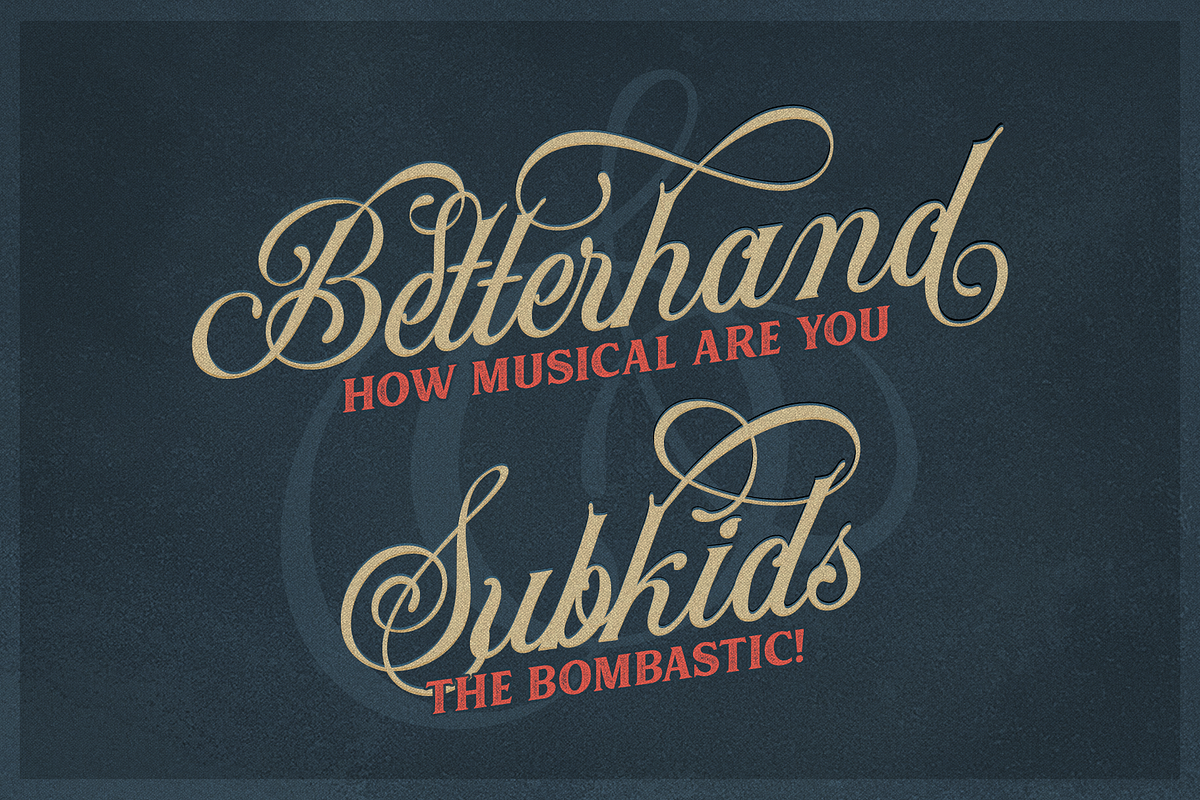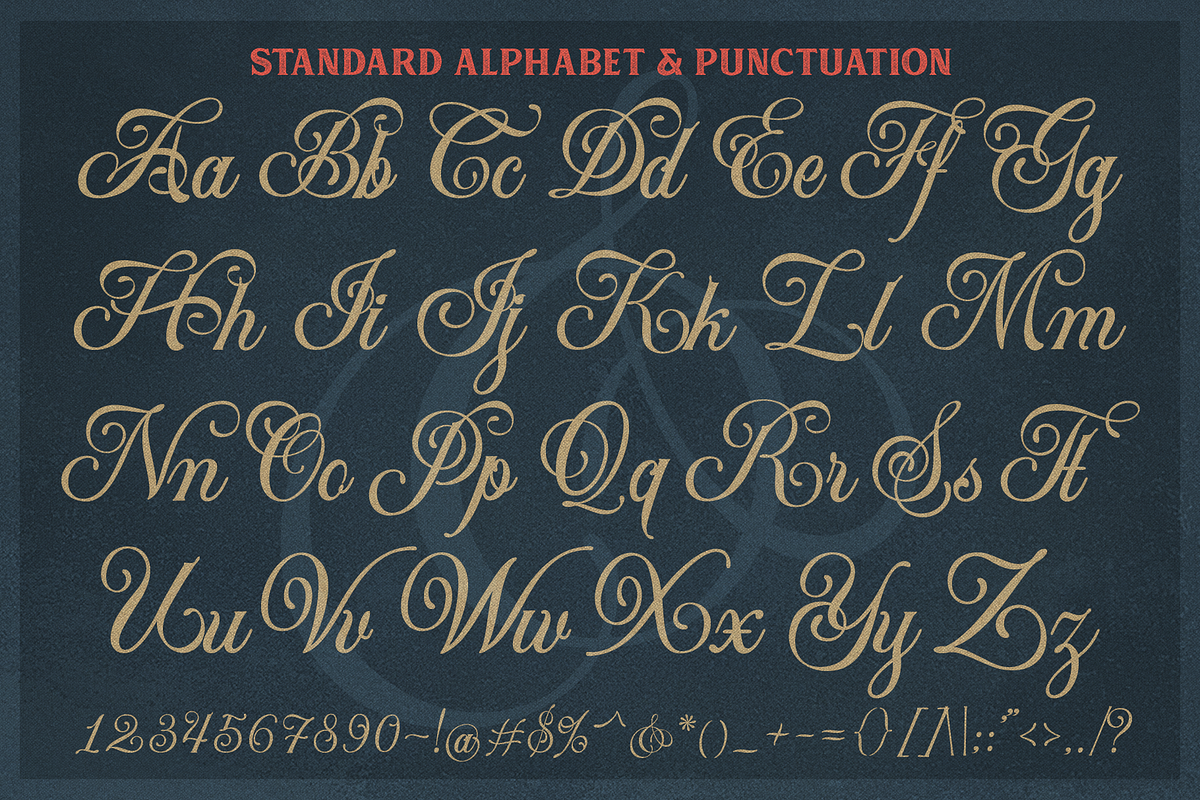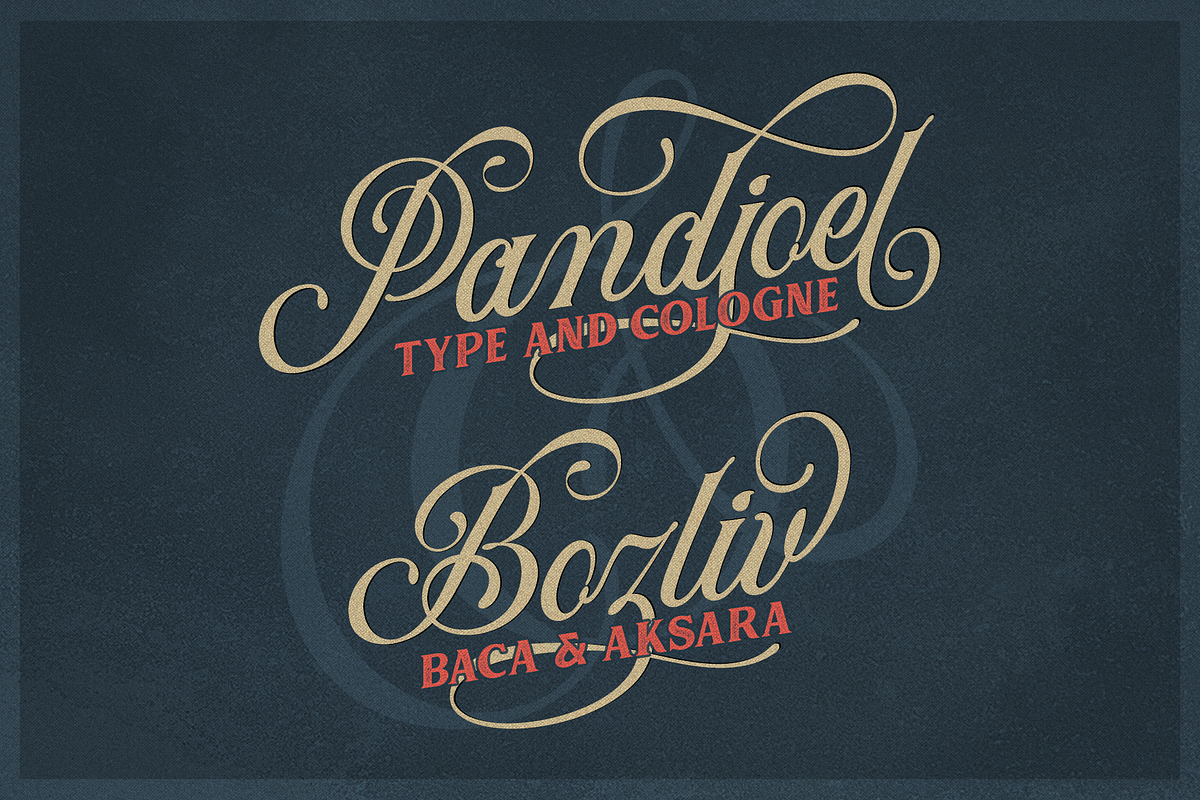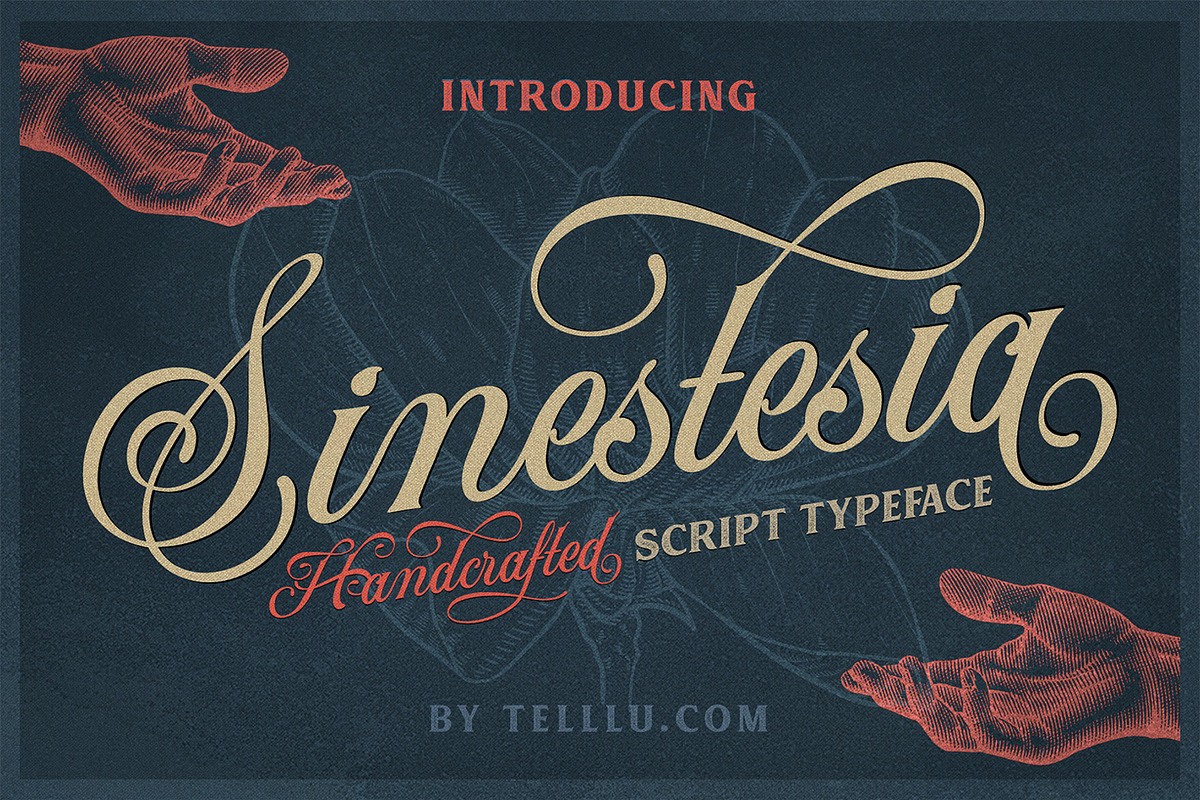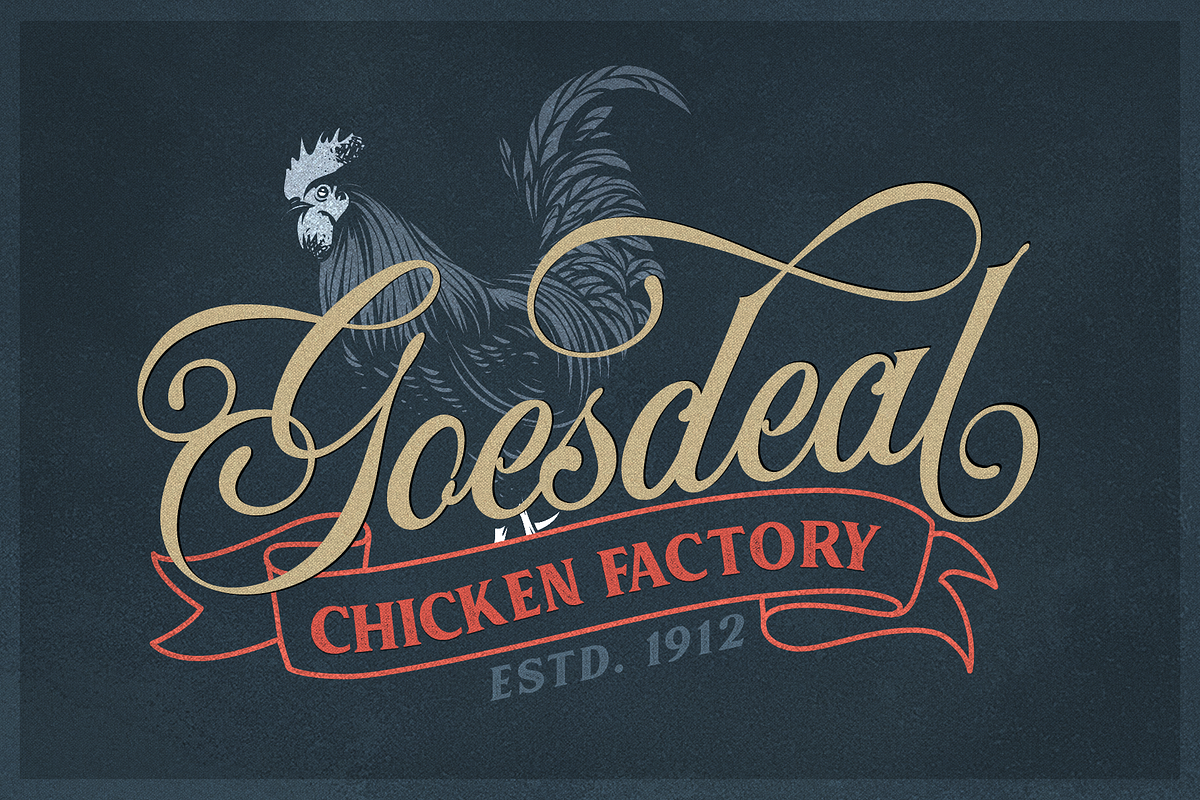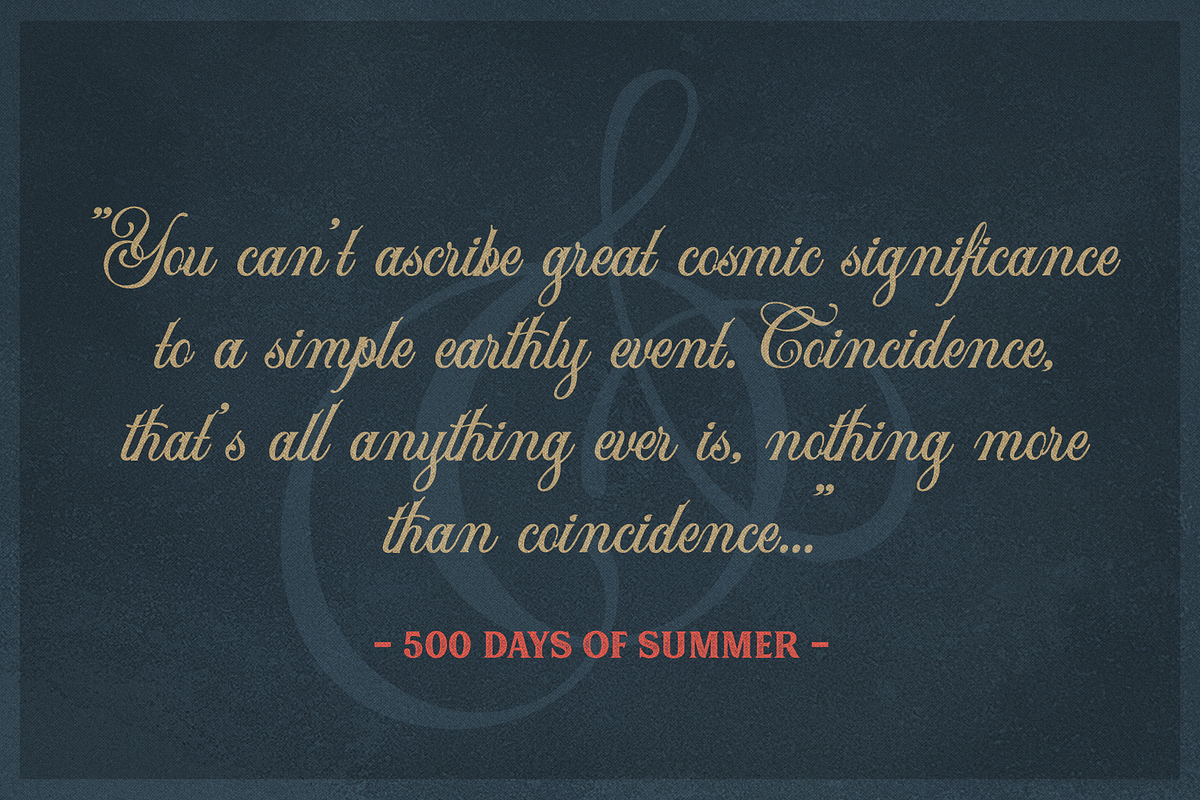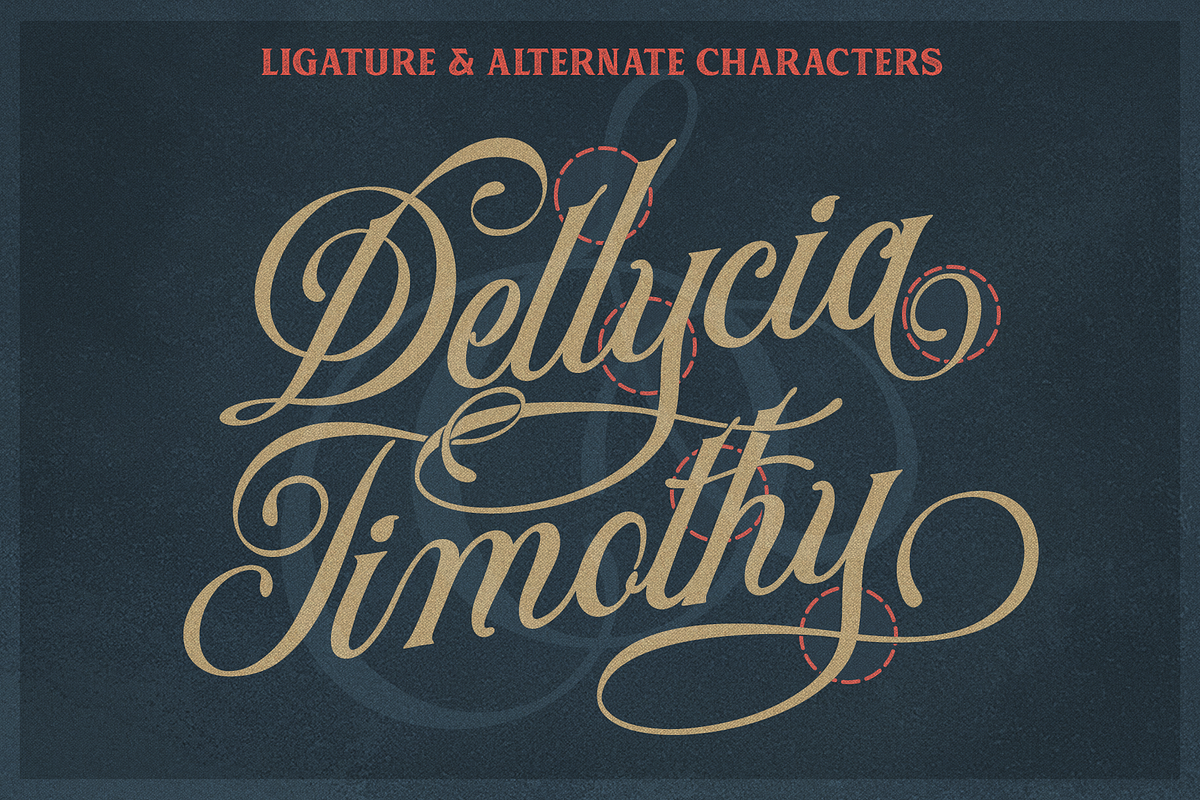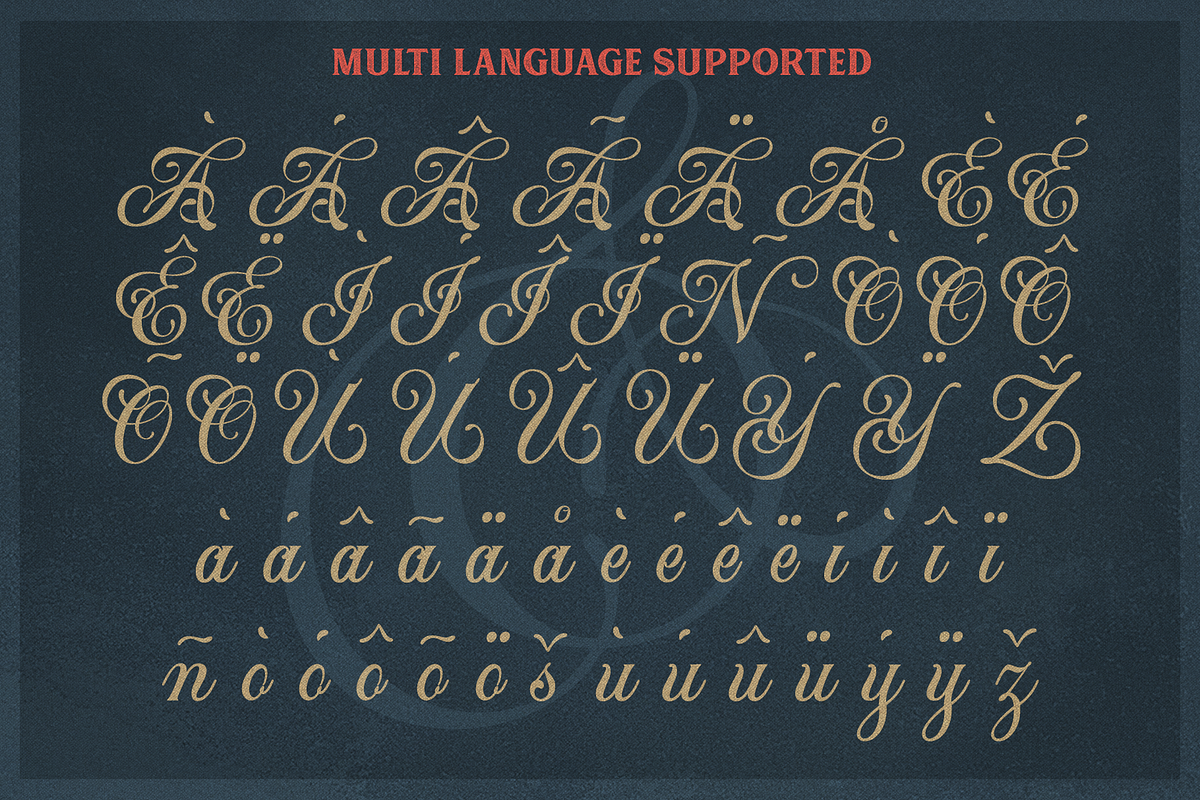
Sinestesia Script Typeface
Sinestesia is a handcrafted script typeface, originally made by hand by our talented lettering artist friend, Haris MM. Truly inspired by brush lettering from old sign paintings. Combined with clean strokes and dynamic movement to brings more personality on your message in very classy way. Very suitable to use on many of your project as Logotype, Letterhead, Poster, Apparel Design, Label, Invitation, and more.
Sinestesia comes in standard uppercase, lowercase, figure and punctuation characters. Support many alternate characters and ligatures. Also include multilingual characters for the following languages; English, French, Italian, Spanish, Portuguese, German, Swedish, Norweigen, Danish, Dutch, Hungarian, Finnish, Polish, Indonesian, Filipino, Malay.
Standard character set (uppercases, lowercases, figures and punctuations).
Alternates and Ligatures character.
Support multi language characters.